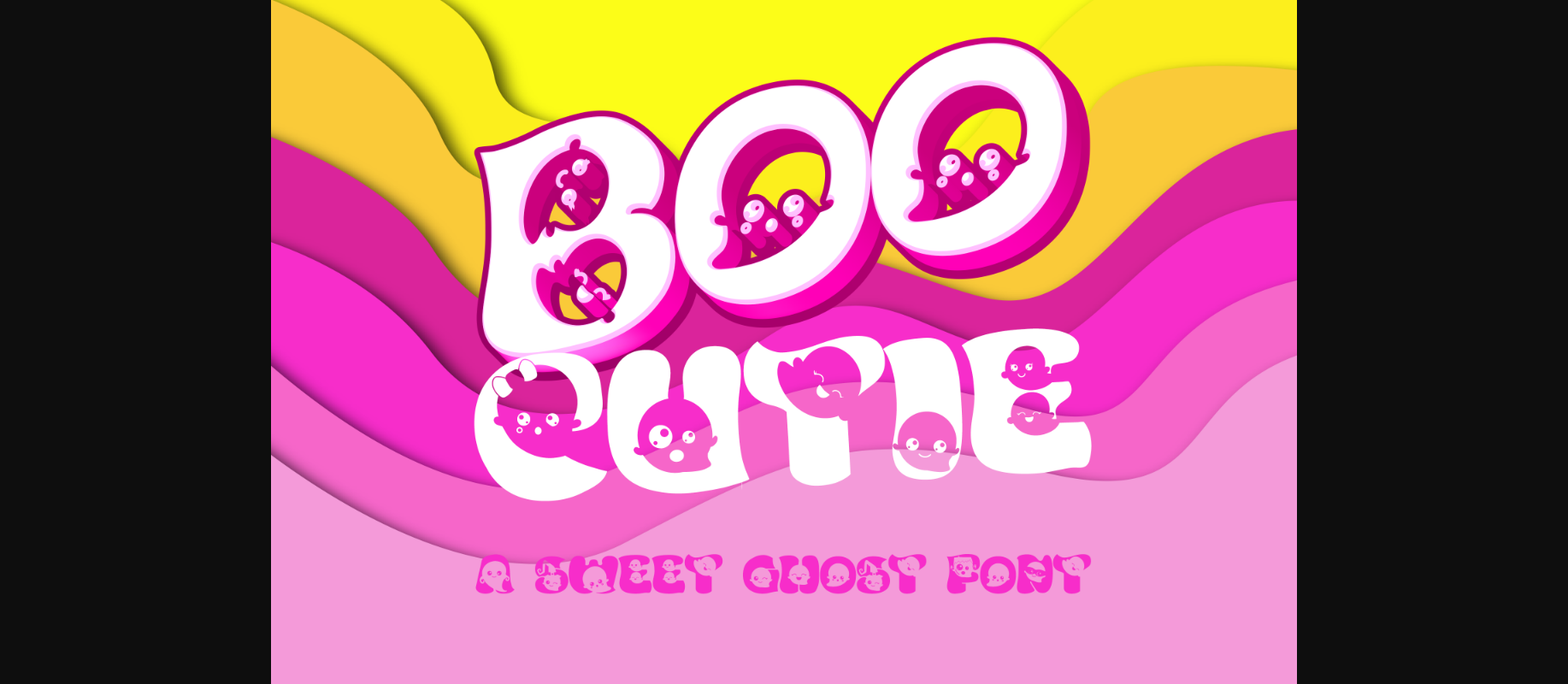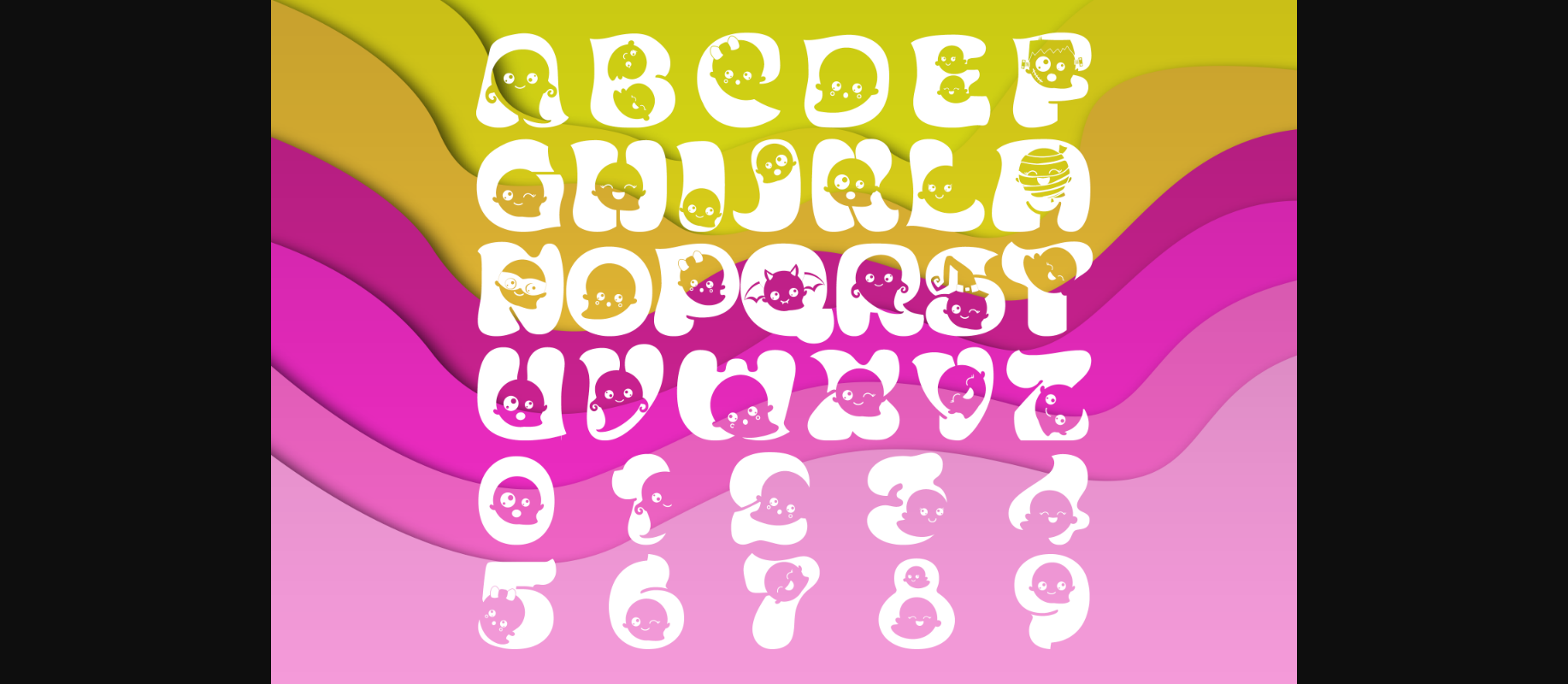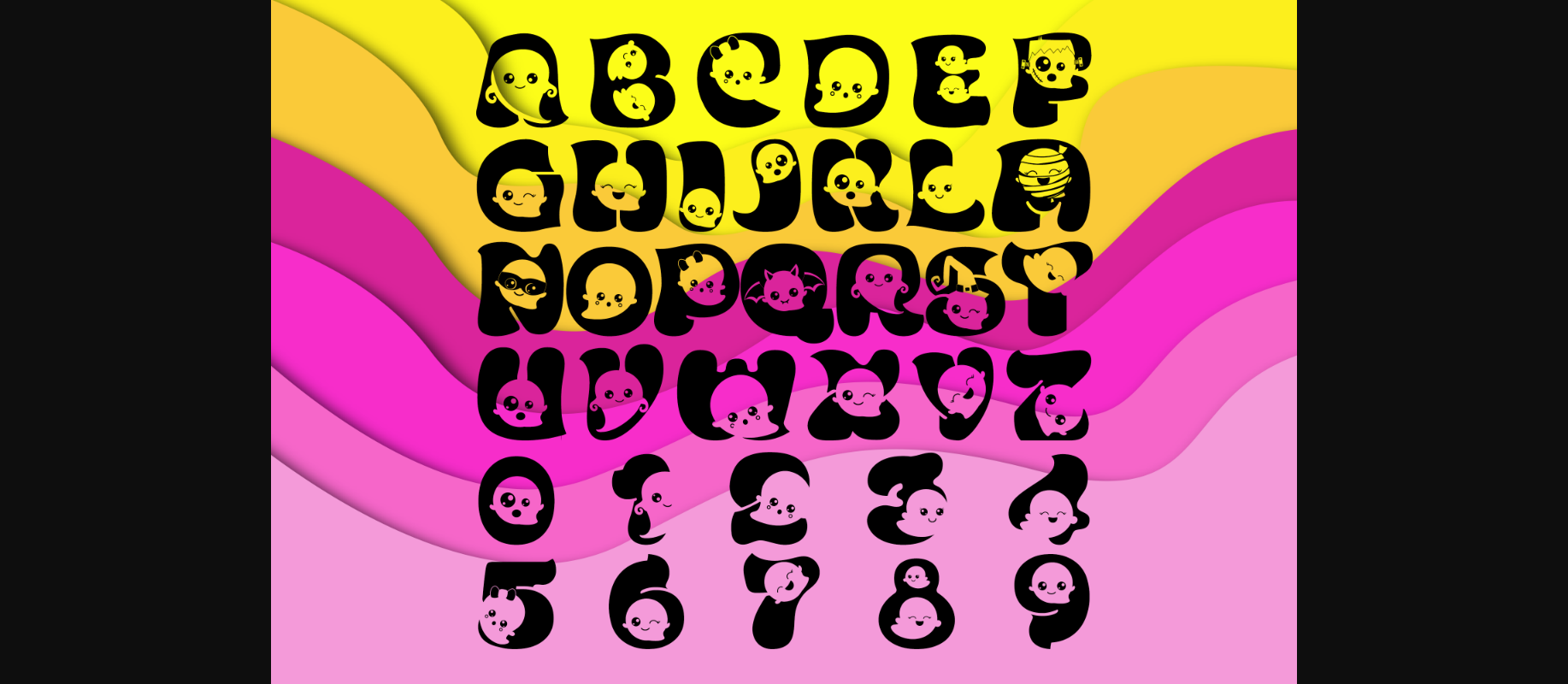
Boo Cutie is an incredibly cool decorative font. Whether you use it for cartoon-related designs, children games, or just any creation that requires a lovely touch, this font will be an amazing choice.